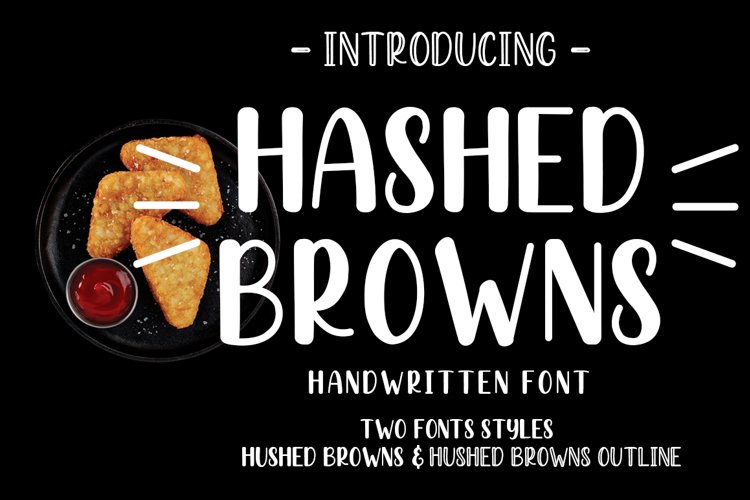
Hashed Browns is a handwritten sans font with all capital letters, this font looks more playful, and even this font can be used for various design needs, it is even easier to view or sort out design themes. because this font is of a very thicker type for digitizing ads. and very strikingly more clearly seen each letter.